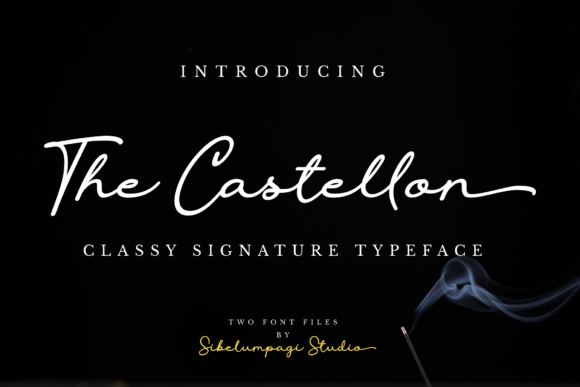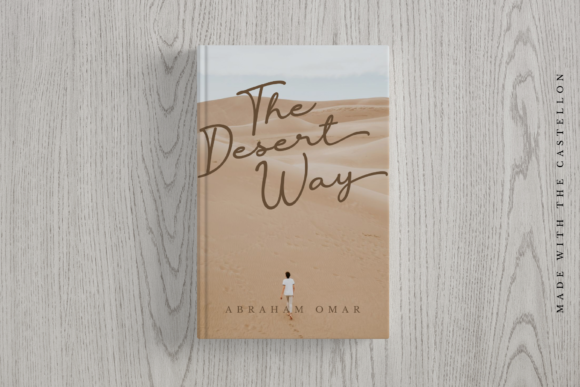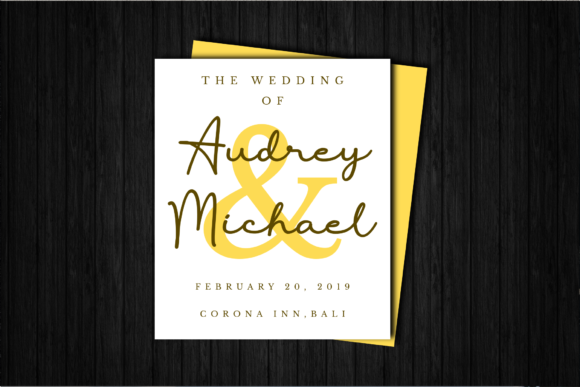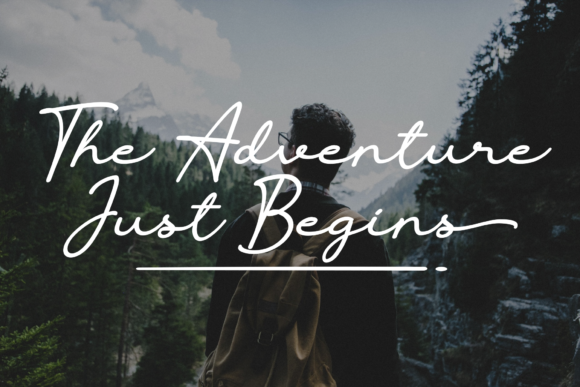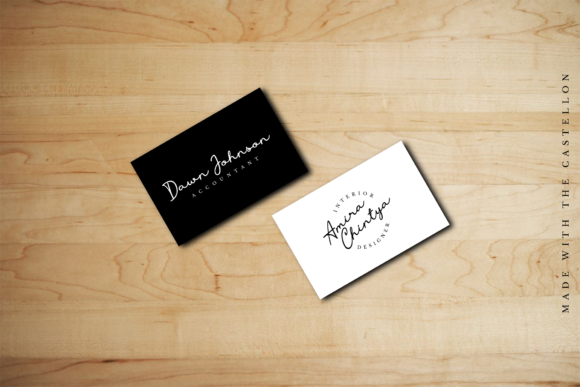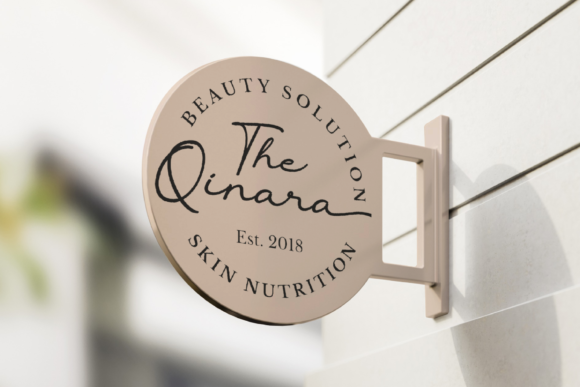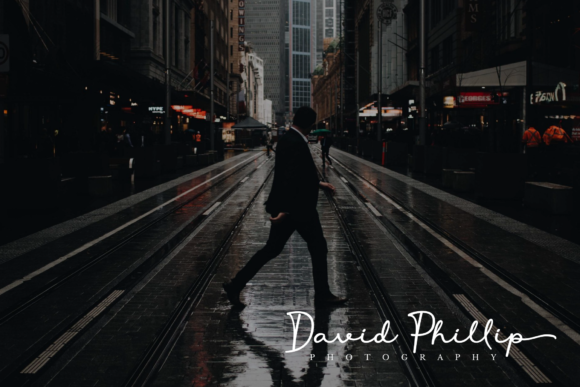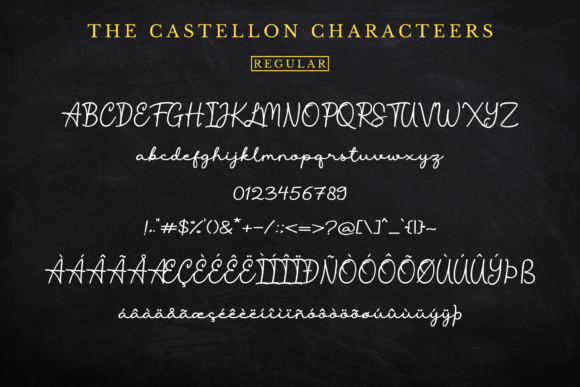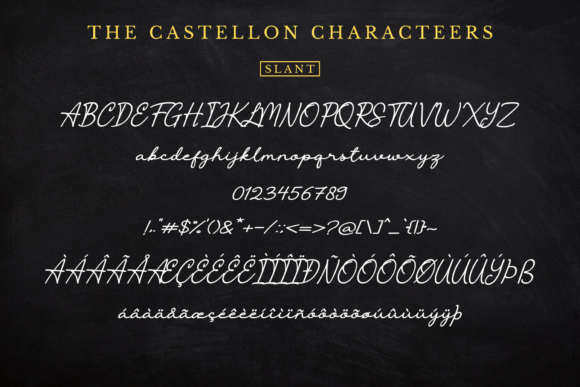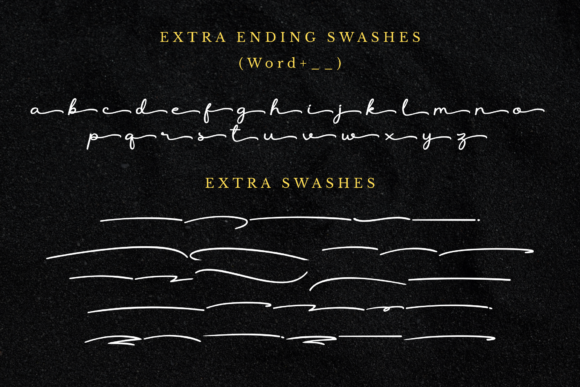
The Castellon Font
About The Castellon Font
The Castellon is a classy signature typeface which comes in a regular and slant version. It has an elegant style which can be used to add a natural touch to your designs.
It’s a good choice for watermarks on photography, signature, logo designs, quotes, branding, business cards, and many other design projects.